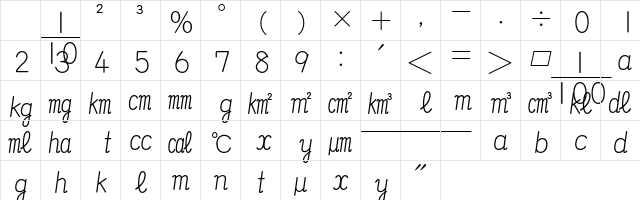
Complete MO GSuujiIt K10 glyph index. Displaying only characters natively supported by MO GSuujiIt K10 font.
MO GSuujiIt is a composed and adaptable typeface that performs quietly and consistently across a wide range of design contexts.